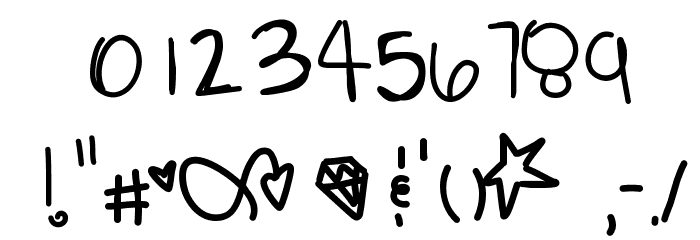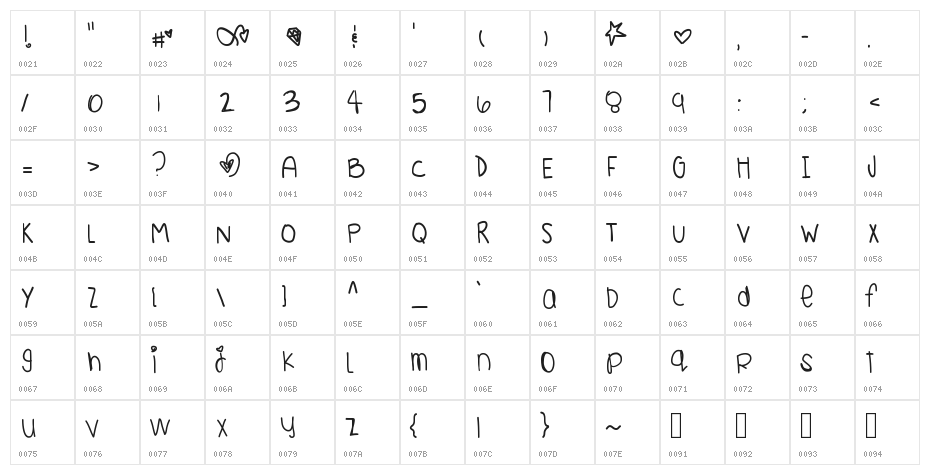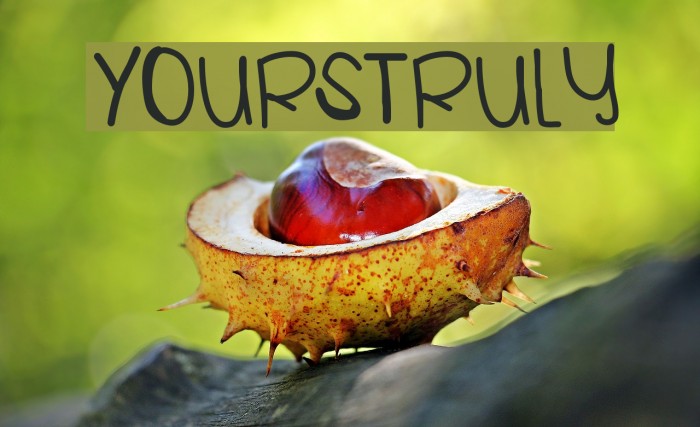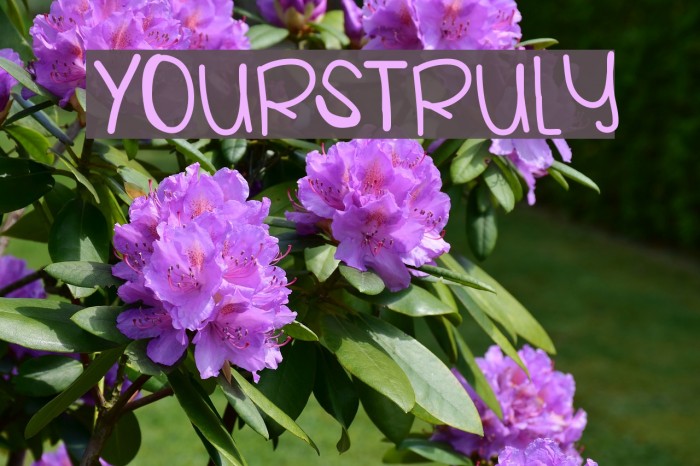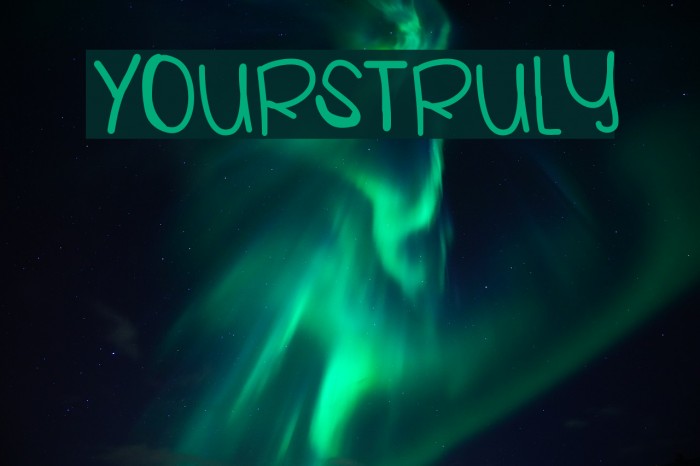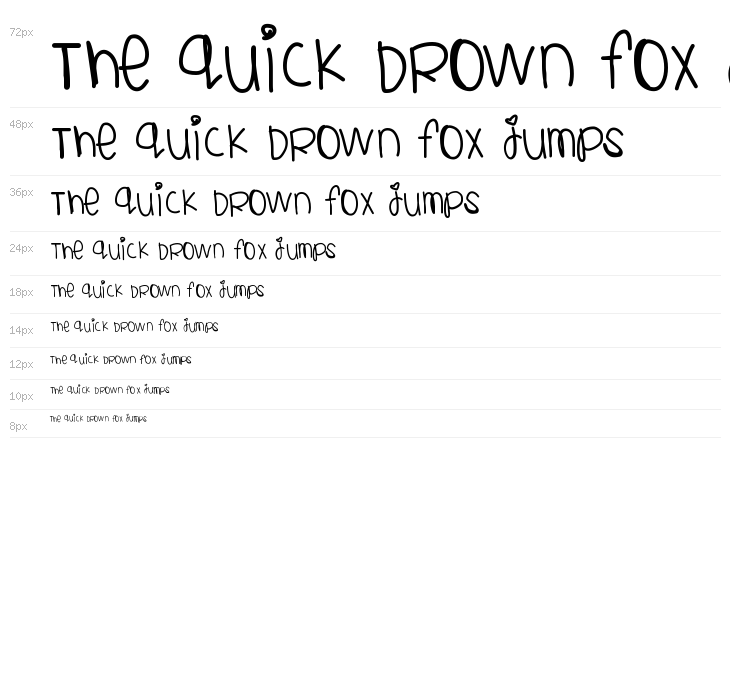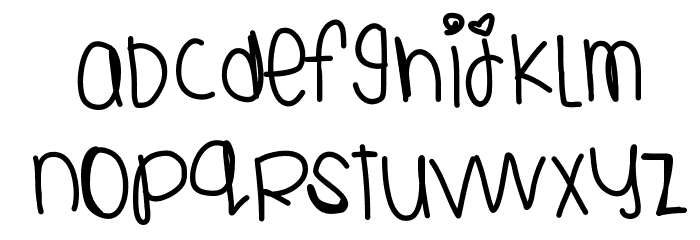
YoursTruly Font
YoursTruly Description
This playful and whimsical font features a handwritten style with a casual and friendly appearance. The letters are slightly irregular, adding a personal touch that mimics natural handwriting. The uppercase and lowercase letters are distinct, with some characters having unique embellishments, such as hearts and stars, enhancing its charm. The numbers and special characters maintain the same playful aesthetic, making it suitable for creative and informal designs.
| Use Case | Headlines, Logos, Informal text |
| Proposed Projects | Ideal for greeting cards, children's books, personal blogs, and playful branding projects. |